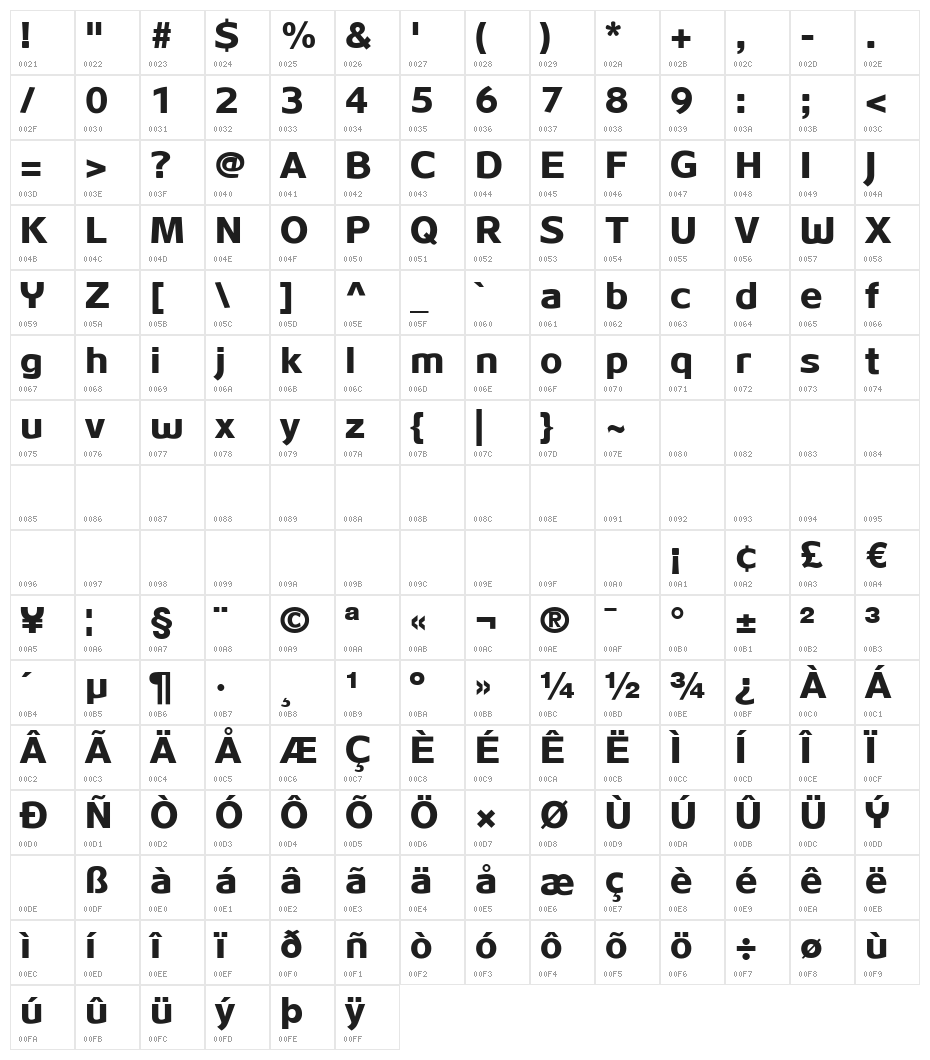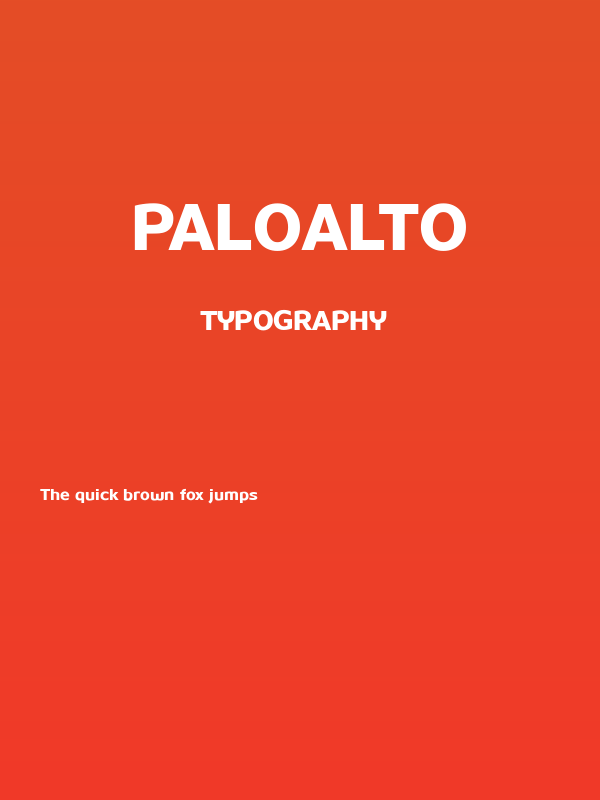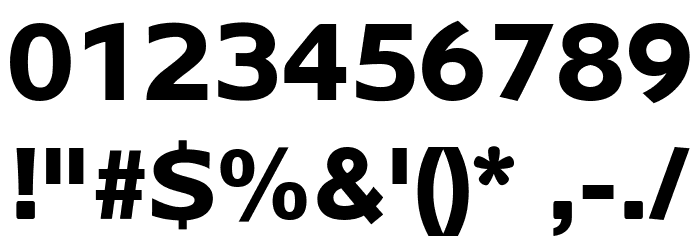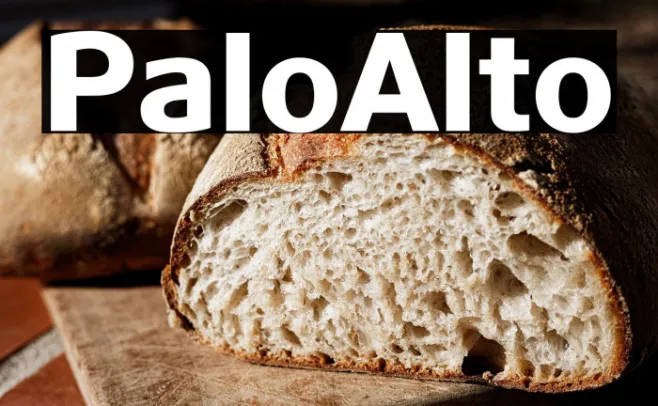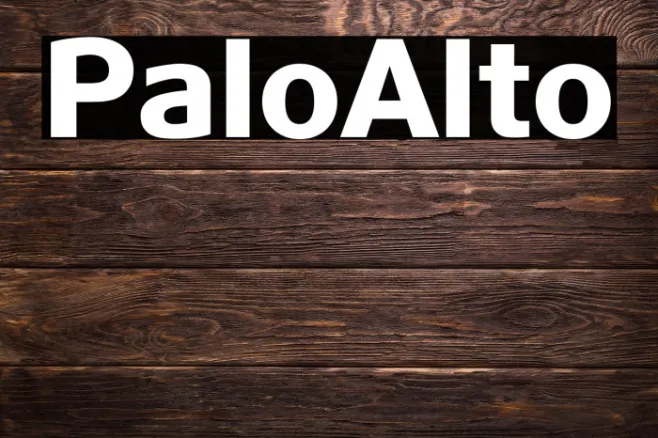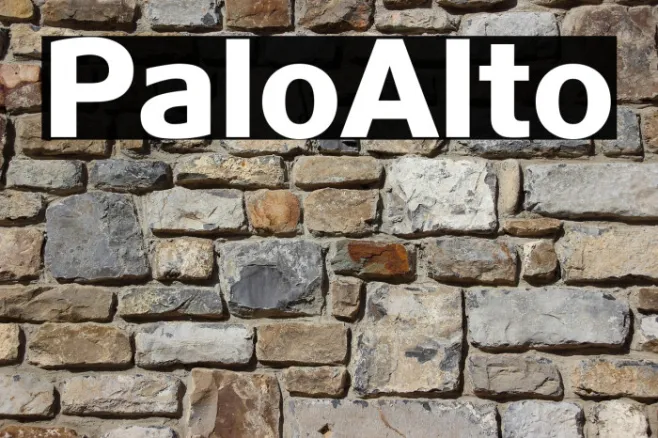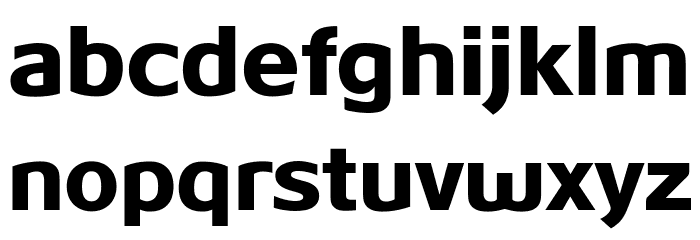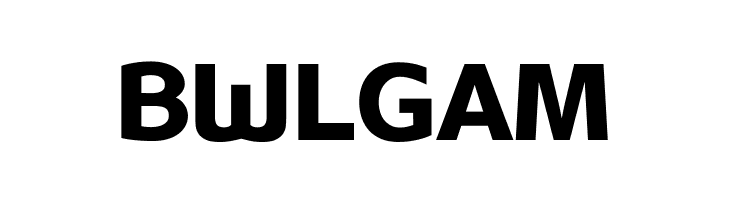
PaloAlto Font
PaloAlto Description
This font exhibits a bold and modern sans-serif style, characterized by its clean and straightforward design. The uppercase letters are uniform in height, with slightly rounded edges that add a touch of softness to the otherwise strong and assertive appearance. The lowercase letters maintain a consistent x-height, ensuring readability and balance. The numerals are clear and distinct, making them suitable for both display and text purposes. Special characters are well-defined, enhancing the font's versatility across various applications.
| Use Case | Headlines, Logos, Digital Interfaces |
| Proposed Projects | Ideal for branding, advertising, headlines, and digital interfaces where clarity and impact are essential. |